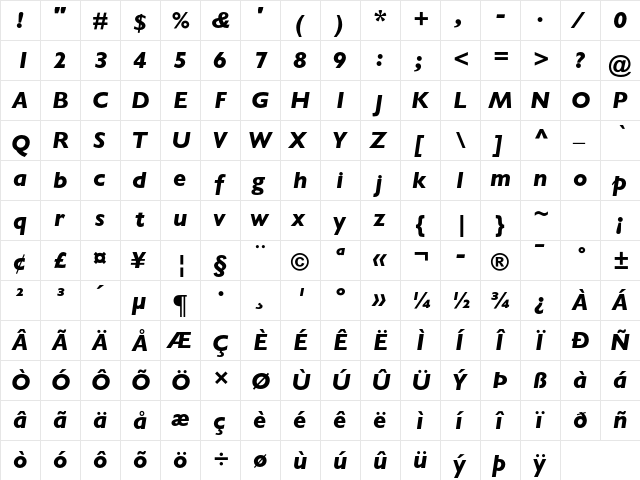
Gill Sans MT Pro Heavy Italic
Design Context for Gill Sans MT Pro Typeface
Gill Sans MT Pro is a composed and adaptable typeface that performs quietly and consistently across a wide range of design contexts. The slanted form adds forward momentum and visual energy.